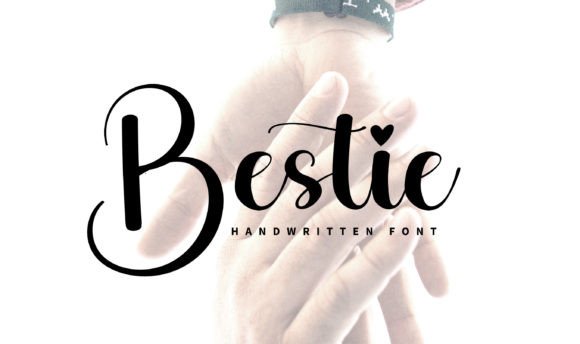
The Bestie Font: A Delicate and Elegant Companion for Your Design Journey
I’ll never forget the moment I stumbled upon the Bestie font. I was working on a project for a client who wanted a elegant and sophisticated look, but I was struggling to find the right font to bring their vision to life. That’s when I discovered Bestie – a delicate and elegant handwritten font that instantly captured my heart. Its distinct and well-balanced letters make it a masterpiece, and I knew right then and there that it was the perfect fit for my project.
- ✨ Delicate and elegant: Bestie has a certain sophistication to it that makes it perfect for projects that require a touch of class.
- ✅ Versatile: Whether you’re working on a logo, a poster, or a social media graphic, Bestie adapts seamlessly to any design style.
- 💕 Handwritten charm: The font’s handwritten feel adds a personal touch to any design, making it perfect for projects that require a bit of whimsy.
Of course, no font is perfect, and Bestie is no exception. Here are a few quirks to keep in mind:
- 🤔 Limited use in body text: While Bestie is stunning in headlines and titles, it may not be the best choice for body text due to its delicate nature.
- ⚠️ Requires careful kerning: As with any handwritten font, kerning can be a bit tricky with Bestie. Make sure to take the time to adjust the spacing to get the best results.
The Story Behind Bestie: A Designer Inspiration
Bestie was created by a talented font designer who wanted to create a font that captured the essence of elegance and sophistication. With a passion for typography and a keen eye for detail, the designer poured their heart and soul into creating a font that would inspire designers to create beautiful works of art. And with Bestie, they certainly succeeded!
| What makes Bestie so special? | Bestie’s unique blend of elegance and sophistication, combined with its delicate and refined letterforms, make it a standout font. |
| Is Bestie suitable for body text? | While Bestie is stunning in headlines and titles, it may not be the best choice for body text due to its delicate nature. |